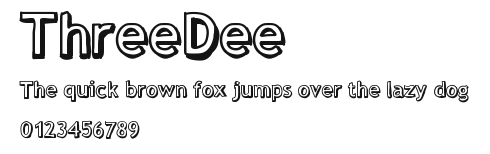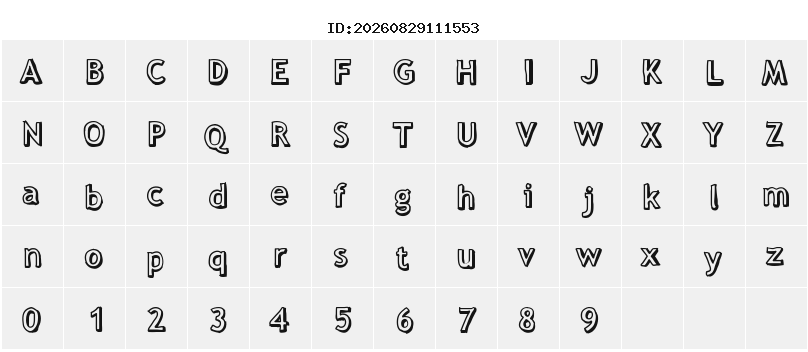
ThreeDee Preview
• Font Name: ThreeDee
• Full Font Name: ThreeDee
About ThreeDee.ttf
ThreeDee.ttf is a modern, elegant sans-serif font designed for ultimate readability and visual harmony. Perfect for branding, headlines, web design, and print materials.